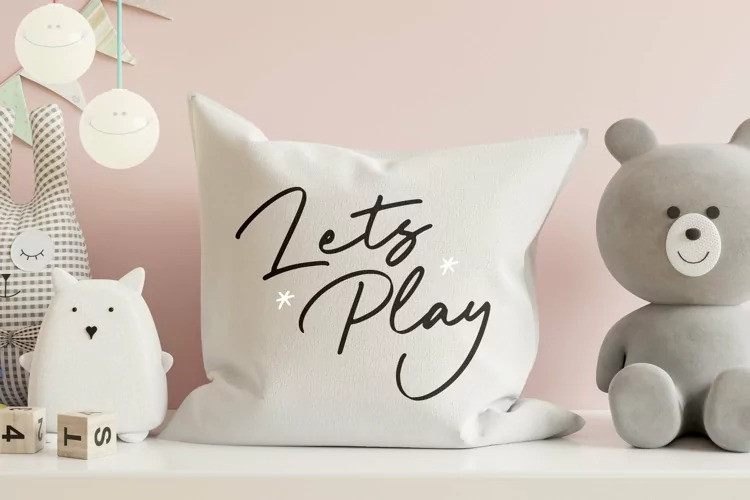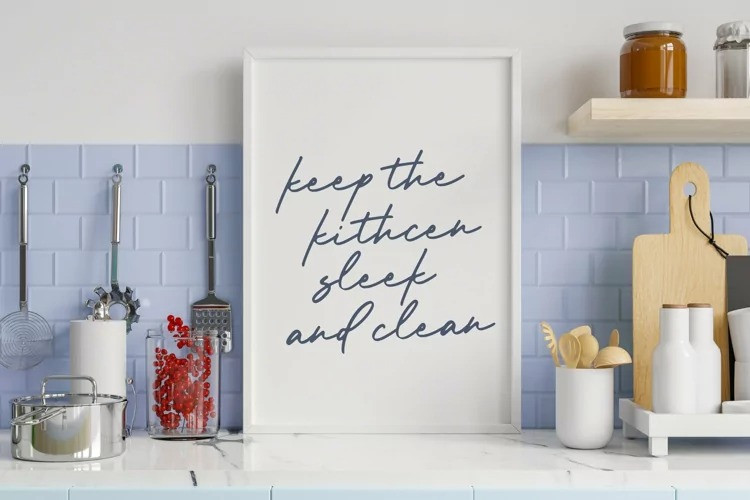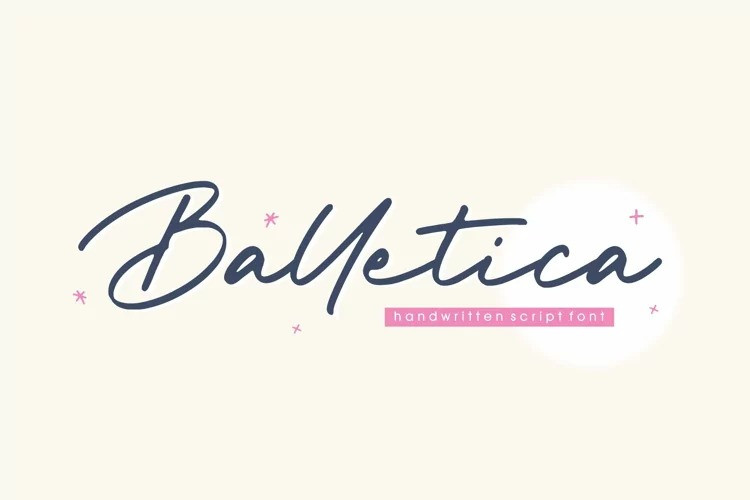
Balletica Script Font
Balletica is a Handwritten Script Font.
Balletica Script is a chic, refined script font that emanates sophistication and elegance. Its stylish alternates and ligatures make this font the perfect match for any project.